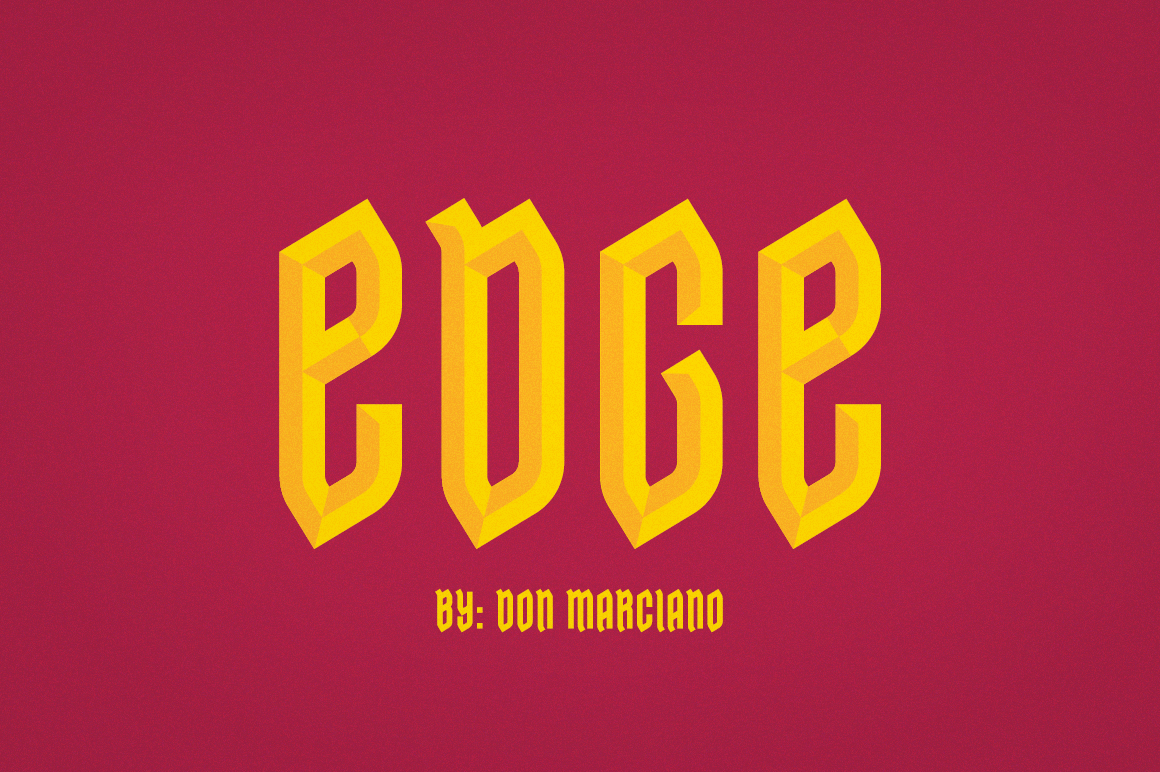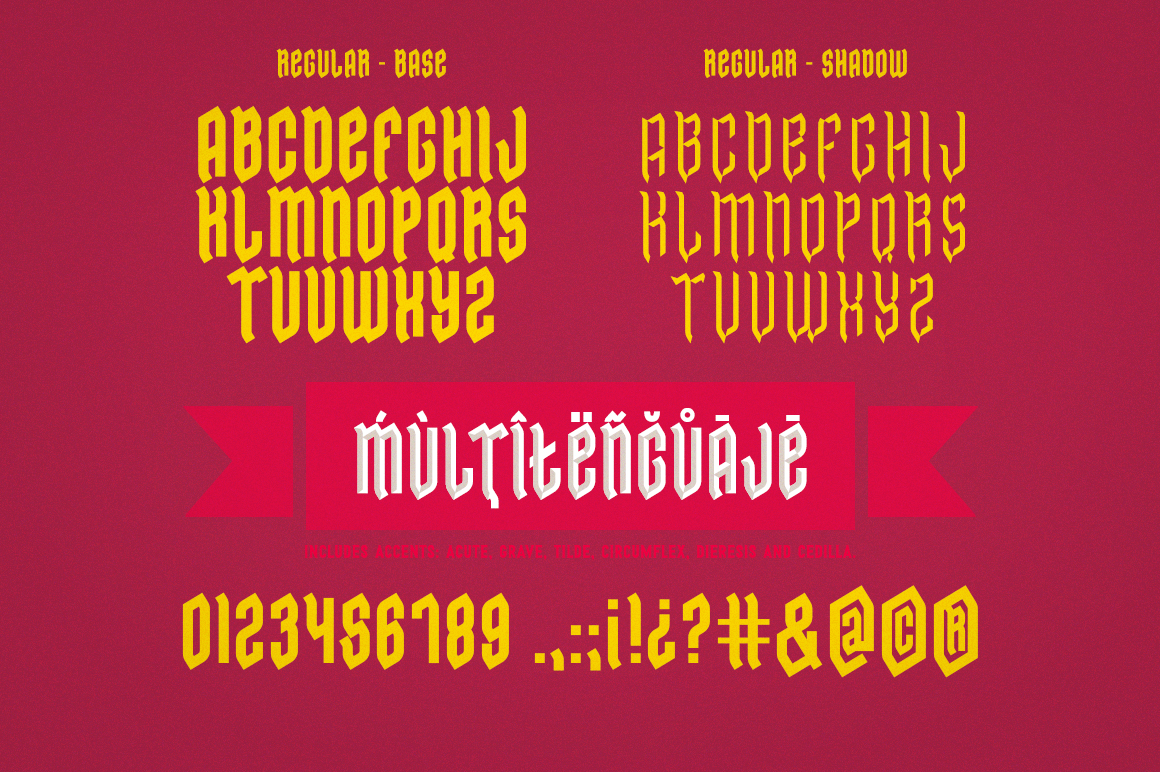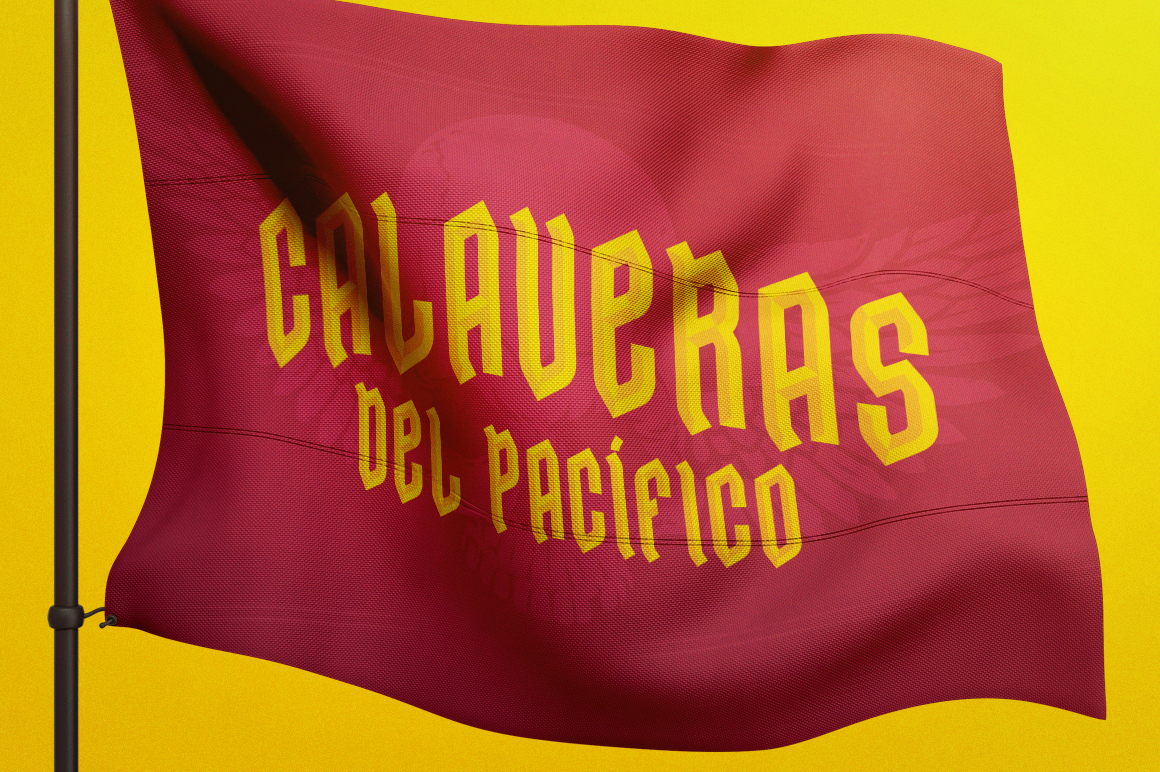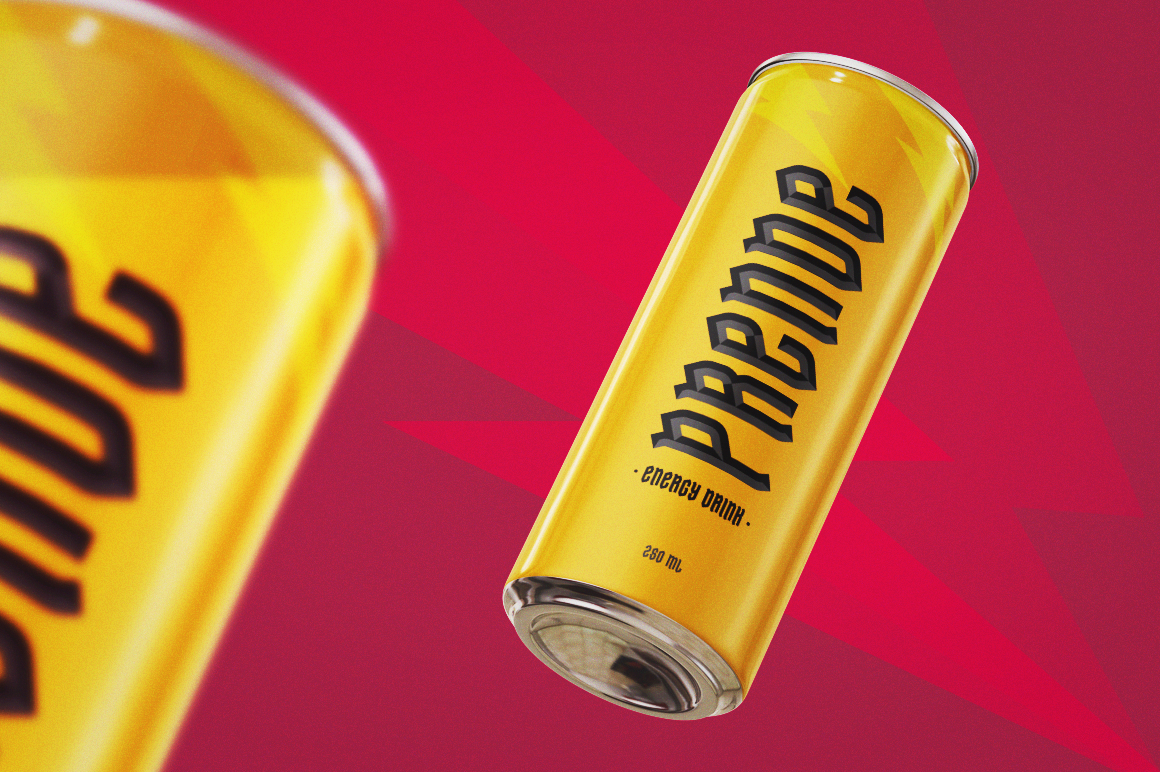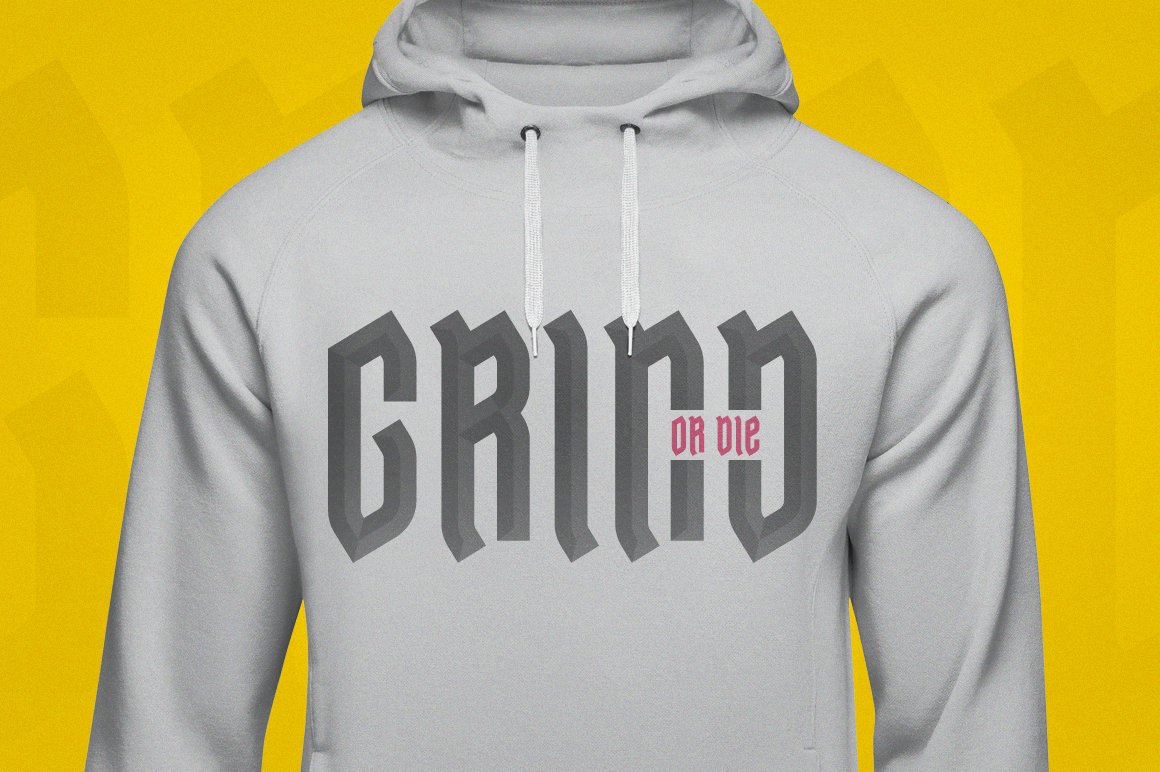
Edge Font
About Edge Font
Edge is a simple and authentic blackletter font. it has a vintage and historical touch. Add to your creative ideas and notice how it will make them stand out!